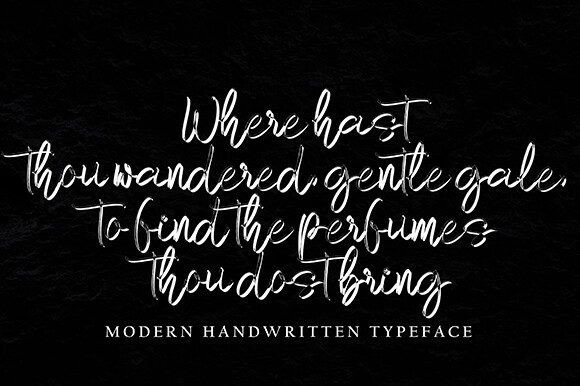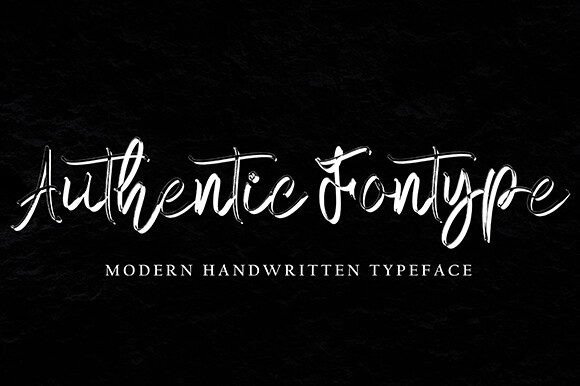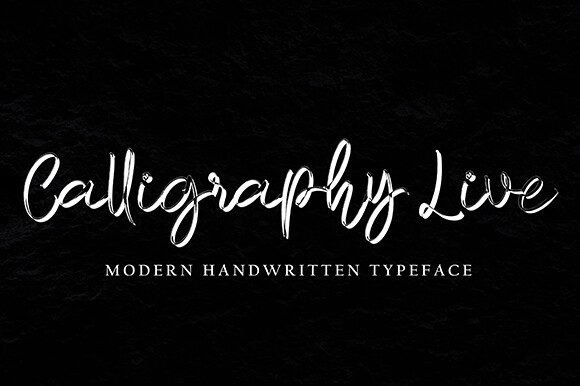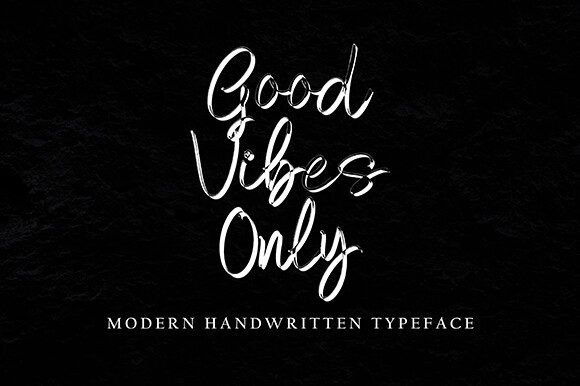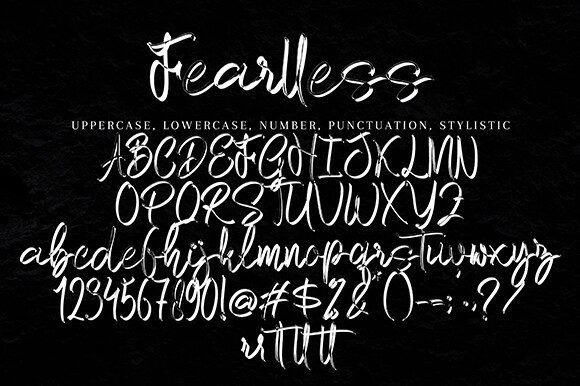
The Fearless Font: A Bold and Versatile Addition to Your Design Arsenal
So, what do I love about the Fearless font? Here are a few things that immediately stood out to me:
- ✨ Unique style: The Fearless font has a distinctive look that’s both modern and bold. It’s perfect for making a statement and grabbing attention.
- ✅ Versatility: This font is incredibly versatile and can be used for a wide range of projects, from quotes and logos to blog headers and posters.
- ✅ Easy to read: Despite its bold style, the Fearless font is surprisingly easy to read, even at smaller sizes.
Of course, no font is perfect, and there are a few small quirks to be aware of:
- 🤔 Limited language support: The Fearless font currently supports a limited number of languages, so be sure to check the character set before using it for a project.
- ⚠️ Some kerning issues: As with any font, there may be some kerning issues, particularly with certain letter combinations. However, these can usually be easily adjusted in your design software.
The Fearless font was designed with the goal of creating a bold and versatile font that could be used for a wide range of projects. The designer wanted to create a font that was both modern and timeless, with a unique style that would stand out in any design.
- Q: What type of projects is the Fearless font best suited for?
- A: The Fearless font is perfect for a wide range of projects, including quotes, logos, blog headers, posters, branding, letters, invitations, and stationery.
- Q: Is the Fearless font easy to read?
- A: Yes, despite its bold style, the Fearless font is surprisingly easy to read, even at smaller sizes.
- Q: Is the Fearless font available in different weights?
- A: Currently, the Fearless font is available in a single weight, but the designer may release additional weights in the future.